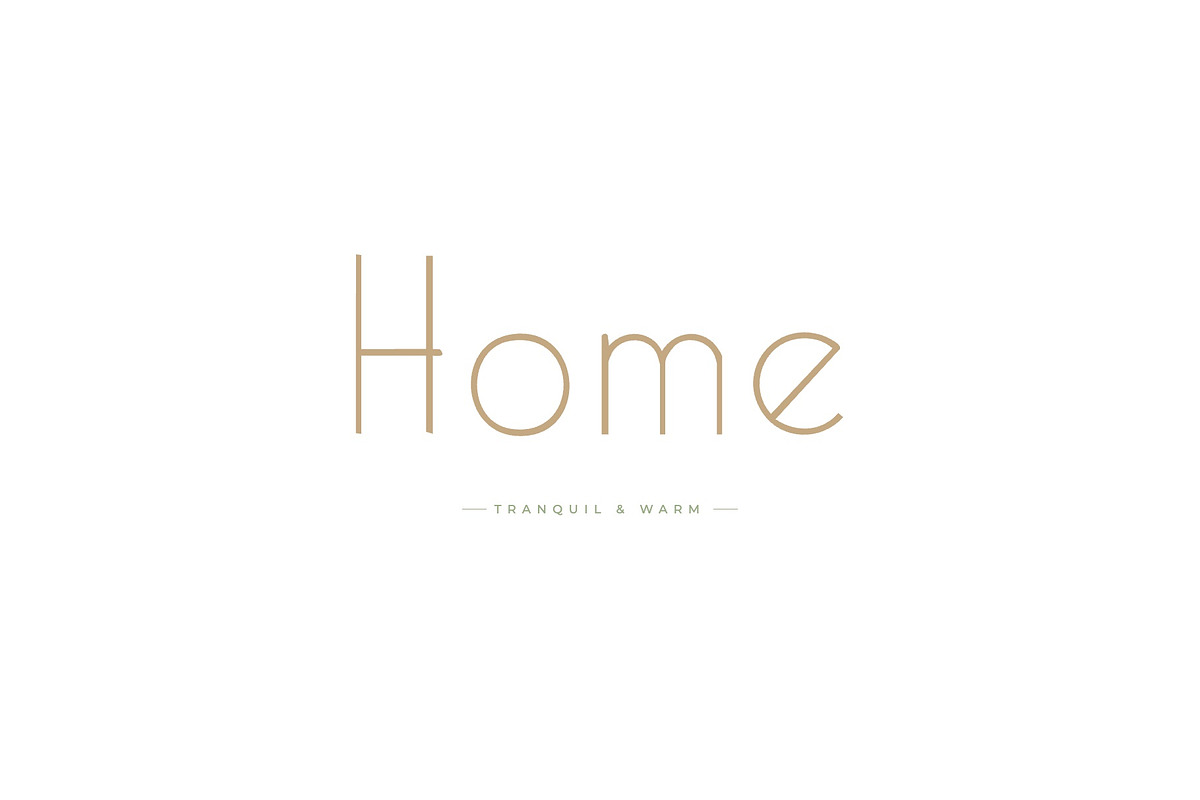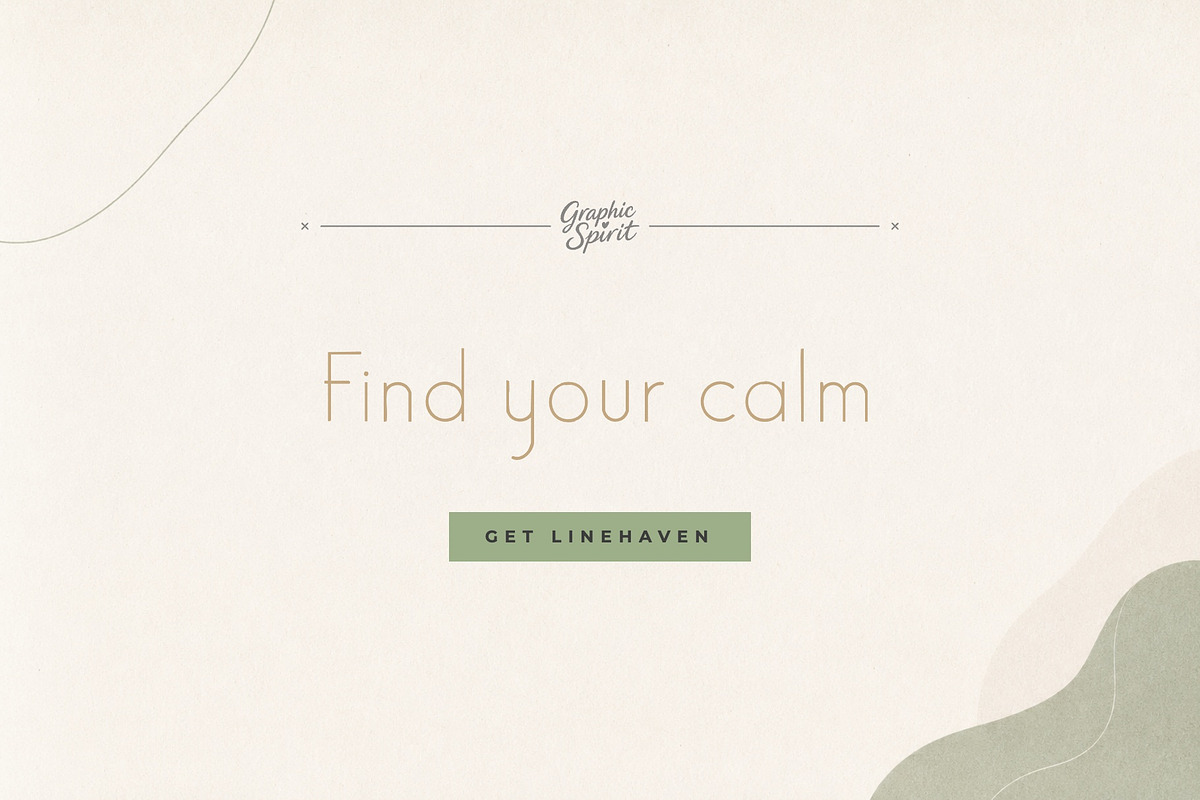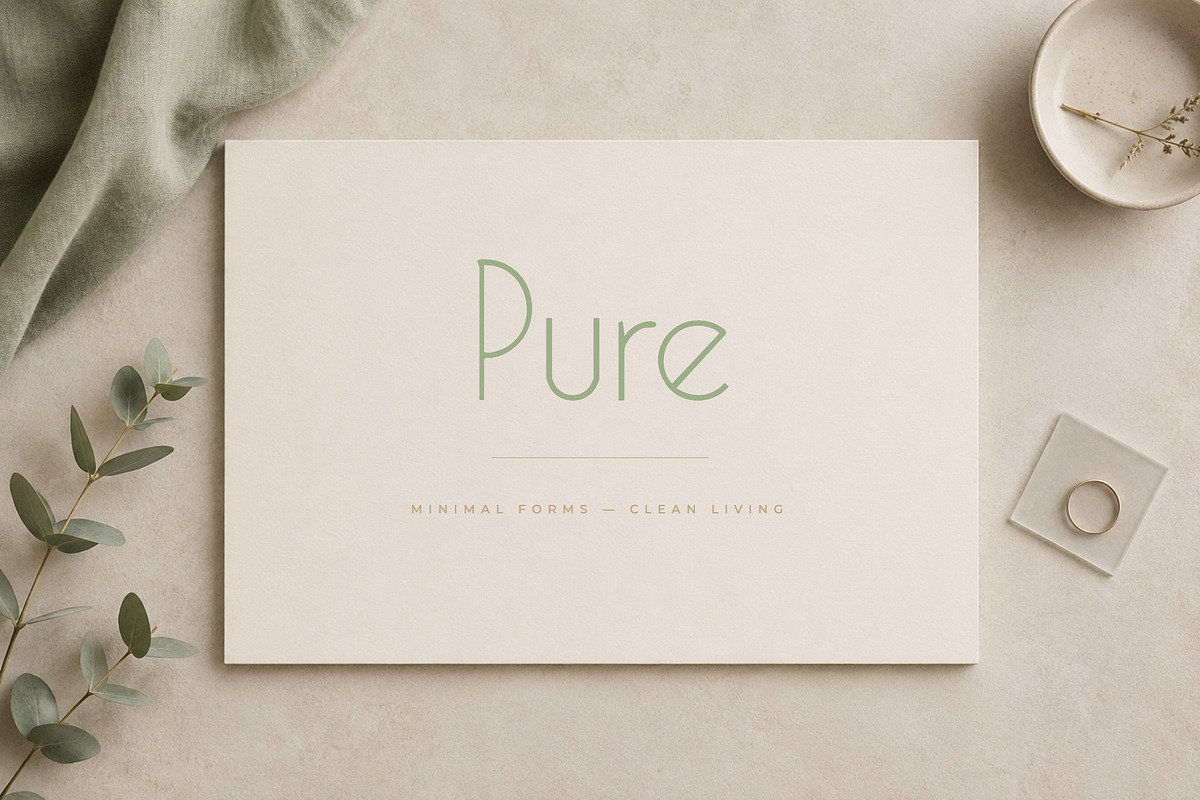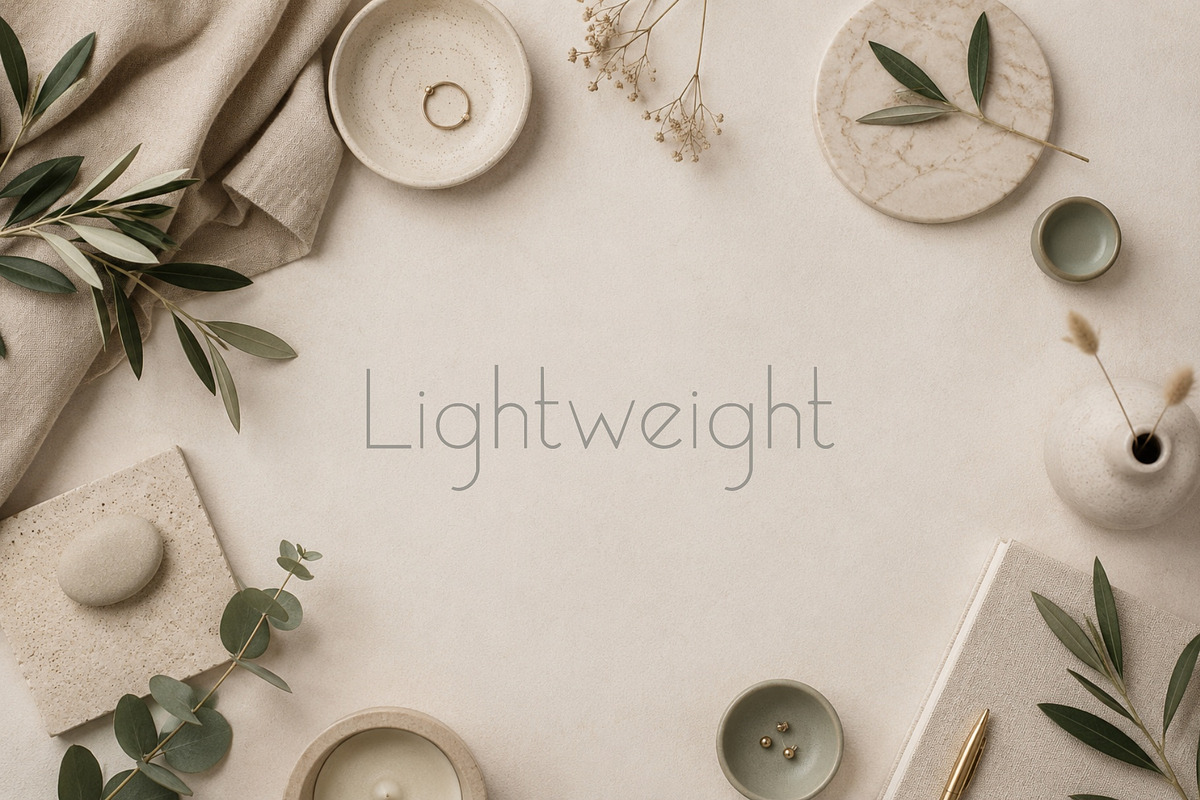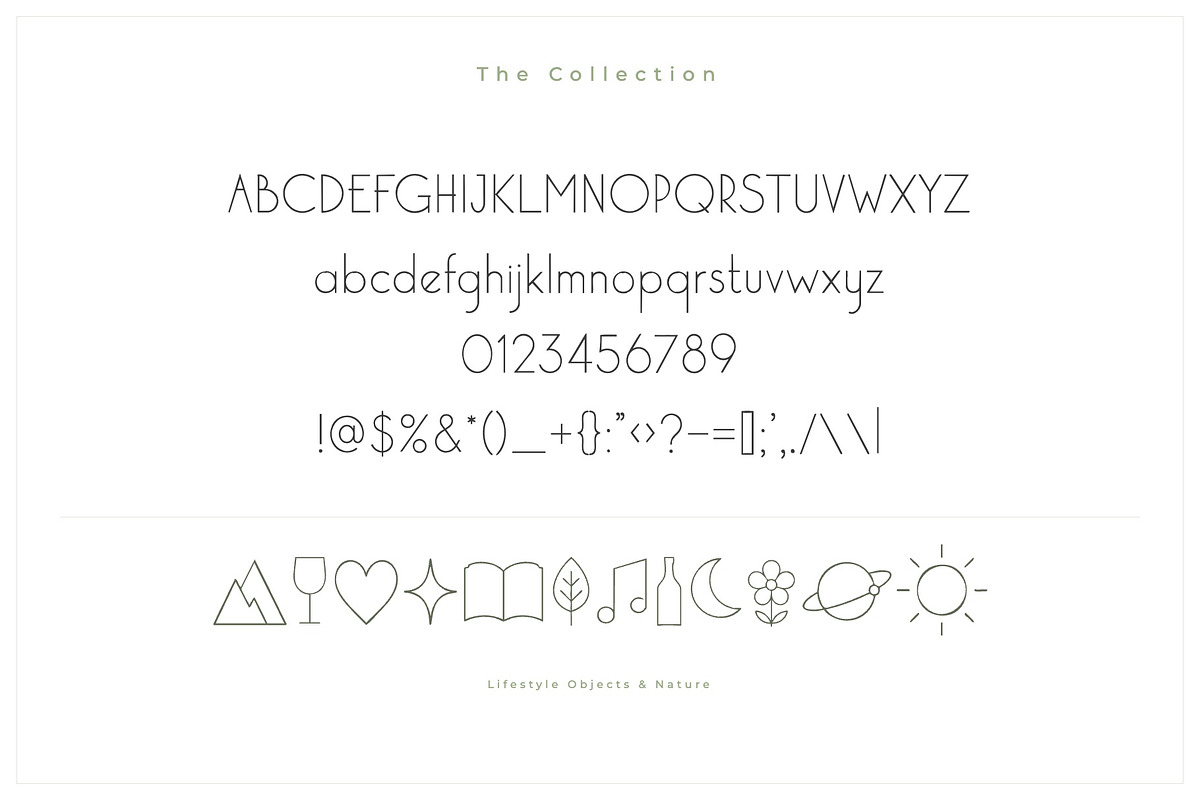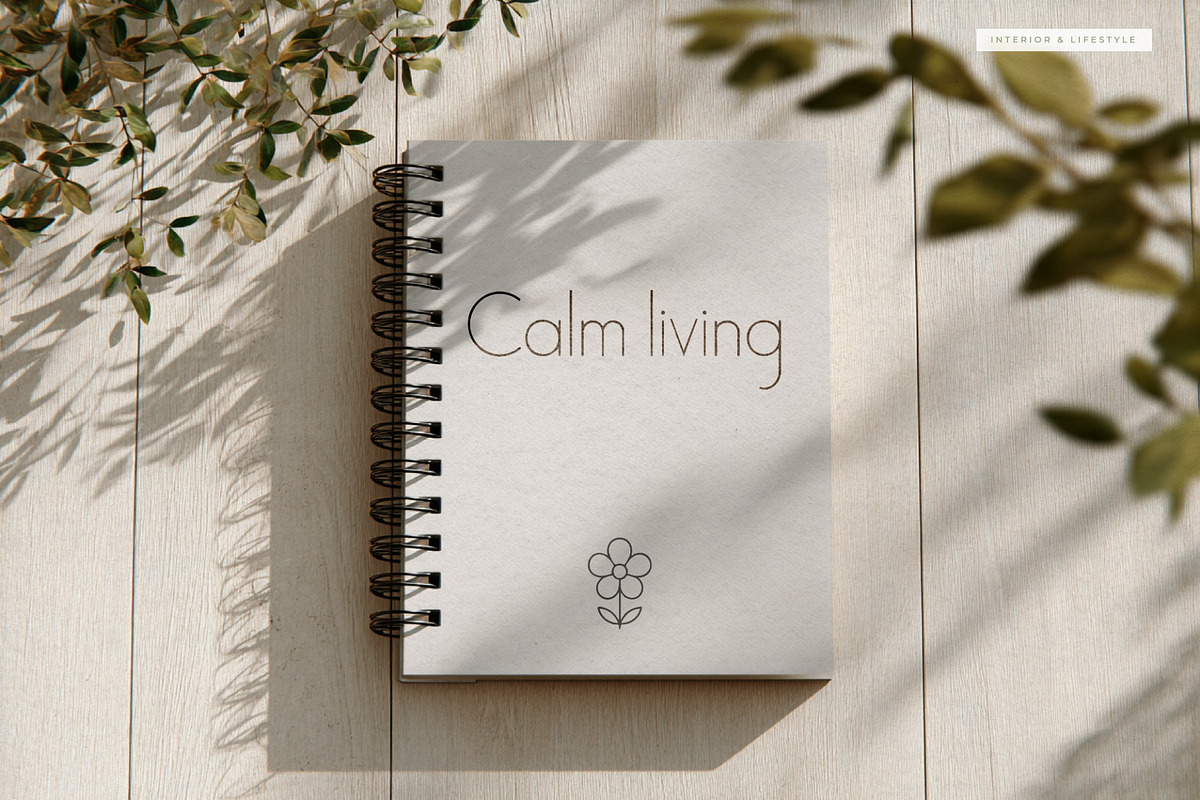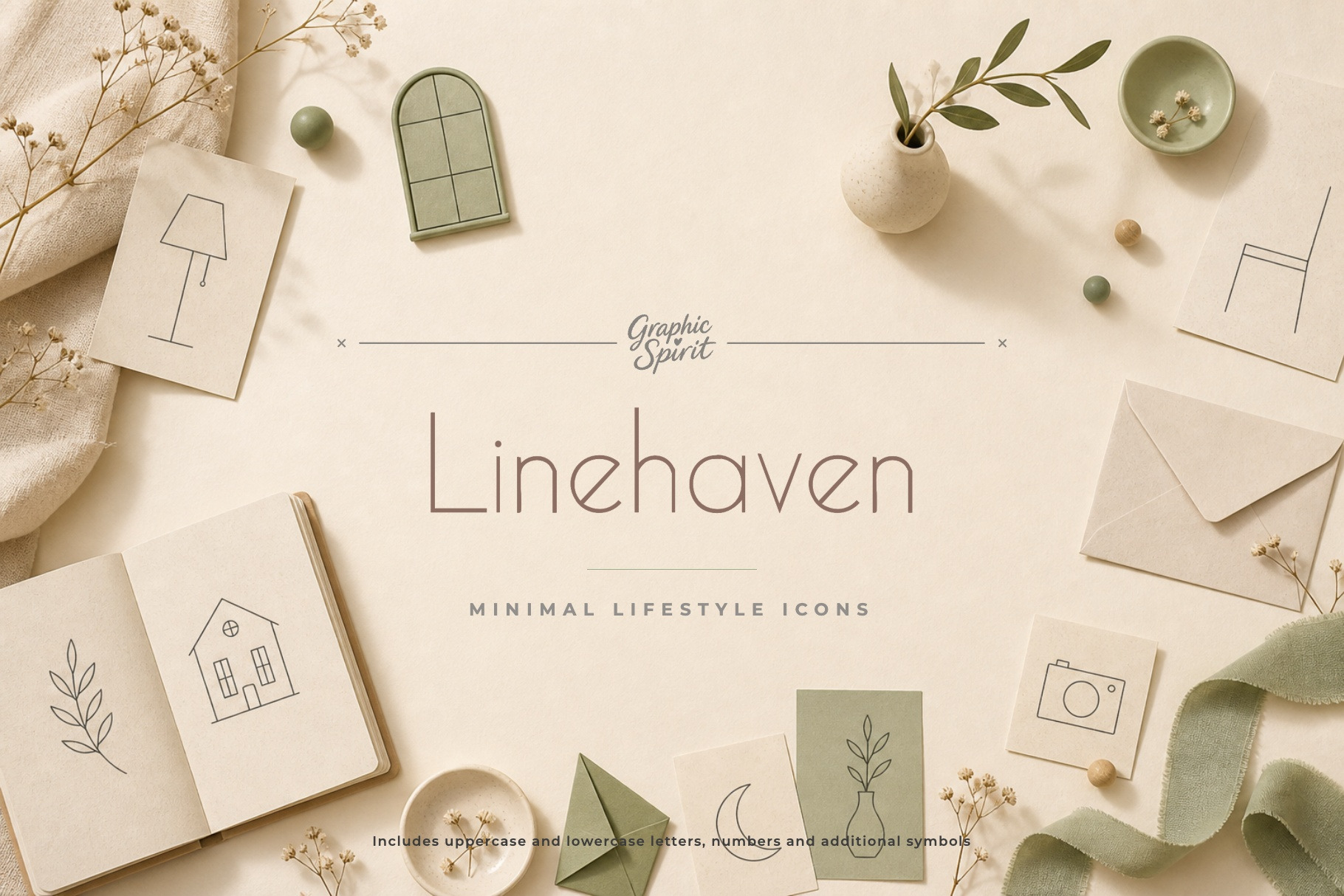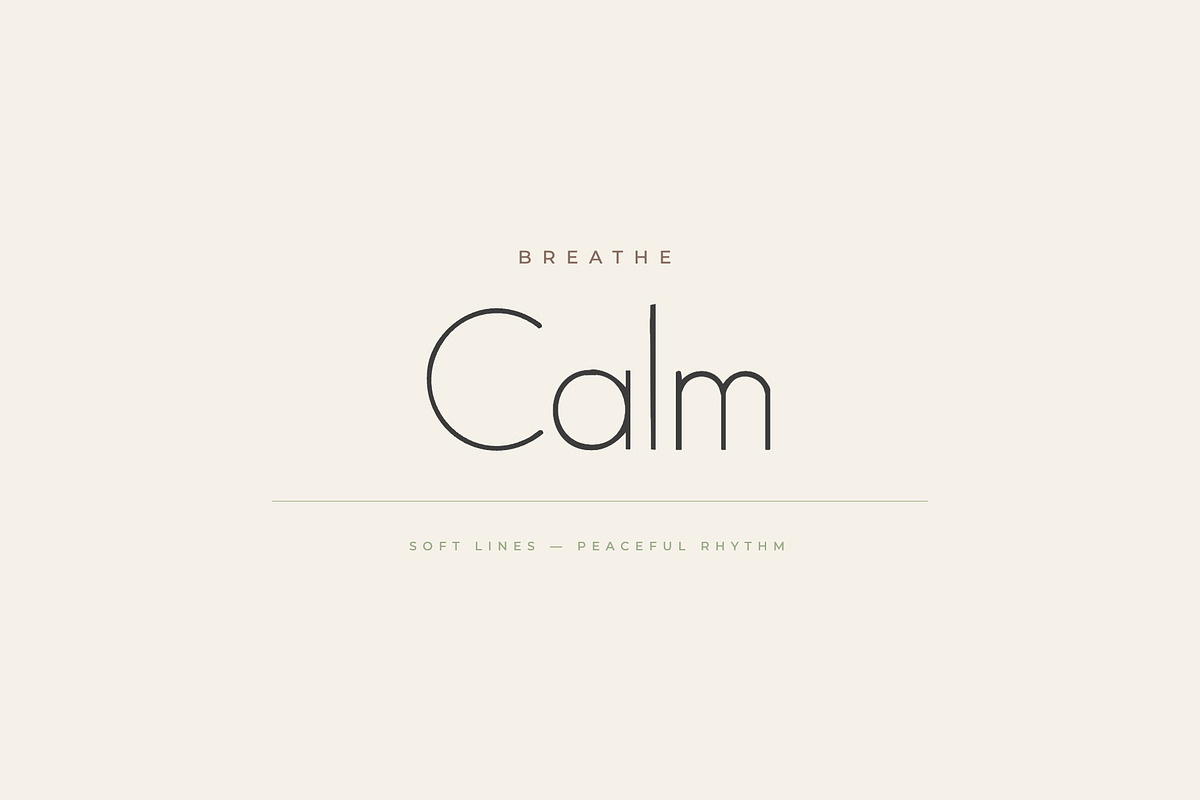
Linehaven Font
✨ Linehaven is a minimal lifestyle line font with quiet monoline forms, calm interior mood, and airy everyday elegance. It was created for designers, makers, and small brands who need expressive typography with a clear visual personality.
🎨 Linehaven works beautifully for minimal branding, wellness packaging, interior labels, calm stationery, lifestyle posters, boutique logos, home decor graphics, mindful products. The style is strong enough for headlines and product names, but still friendly enough for approachable branding, packaging, posters, labels, social graphics, and creative layouts.
💛 The typeface has a distinct display rhythm, so even short words feel designed and intentional. It is a useful choice when you want a project to feel crafted, memorable, and visually specific.
Best for:
- 🌿 Minimal lifestyle branding
- 🕯️ Wellness packaging and calm labels
- 🏡 Interior, home, and decor graphics
- 📄 Stationery and editorial titles
- ✨ Quiet monoline display typography
Includes uppercase and lowercase letters, numbers, punctuation, and additional symbols shown in the previews.